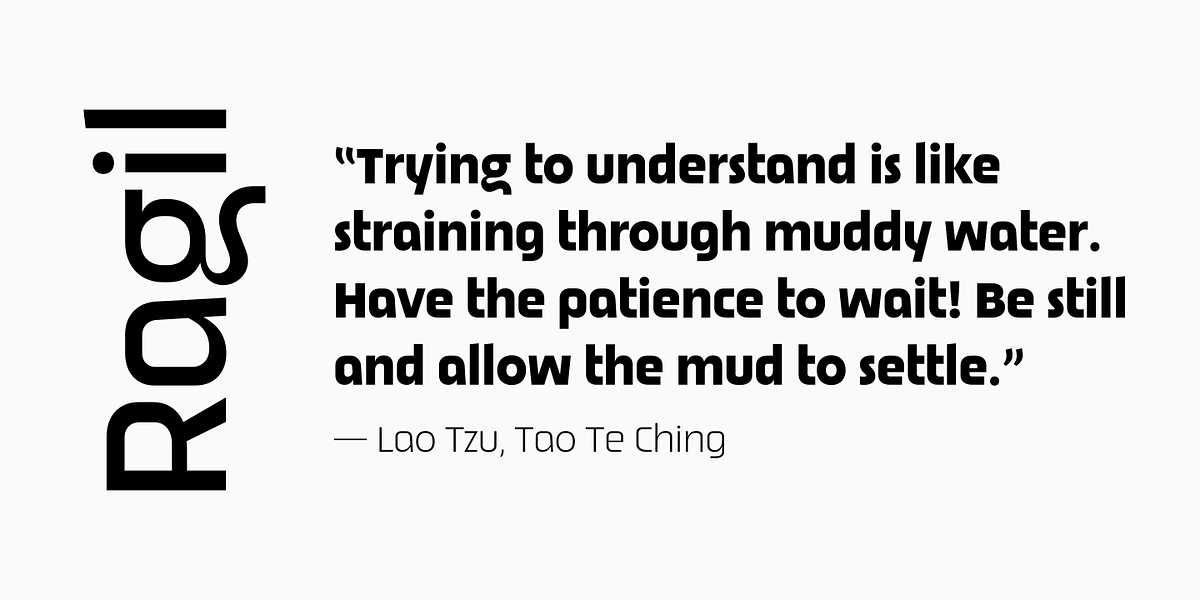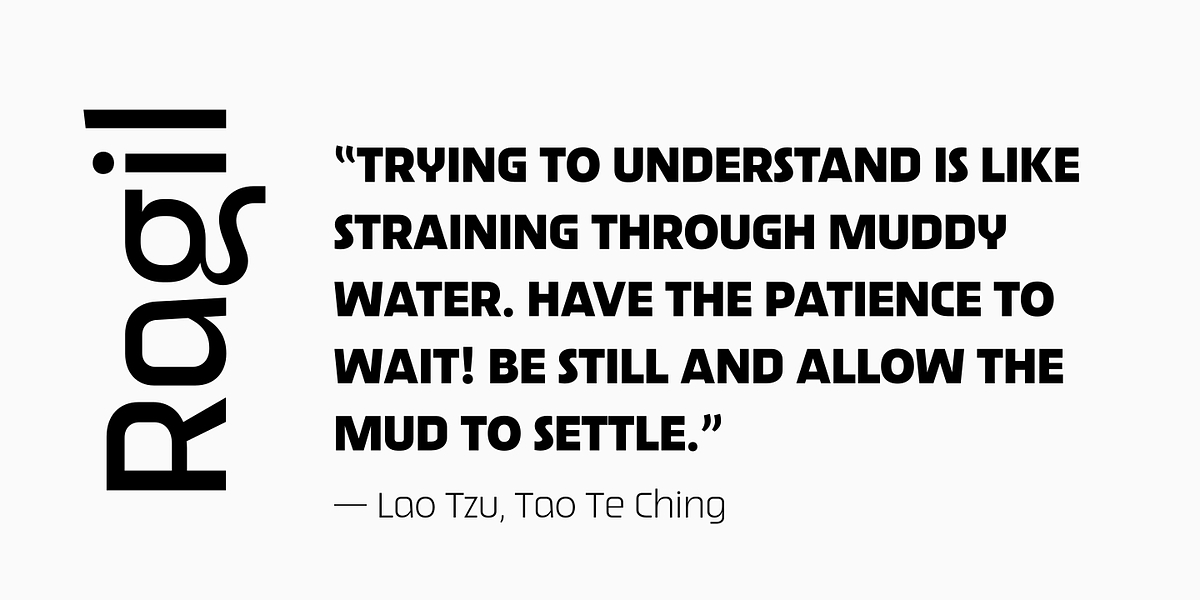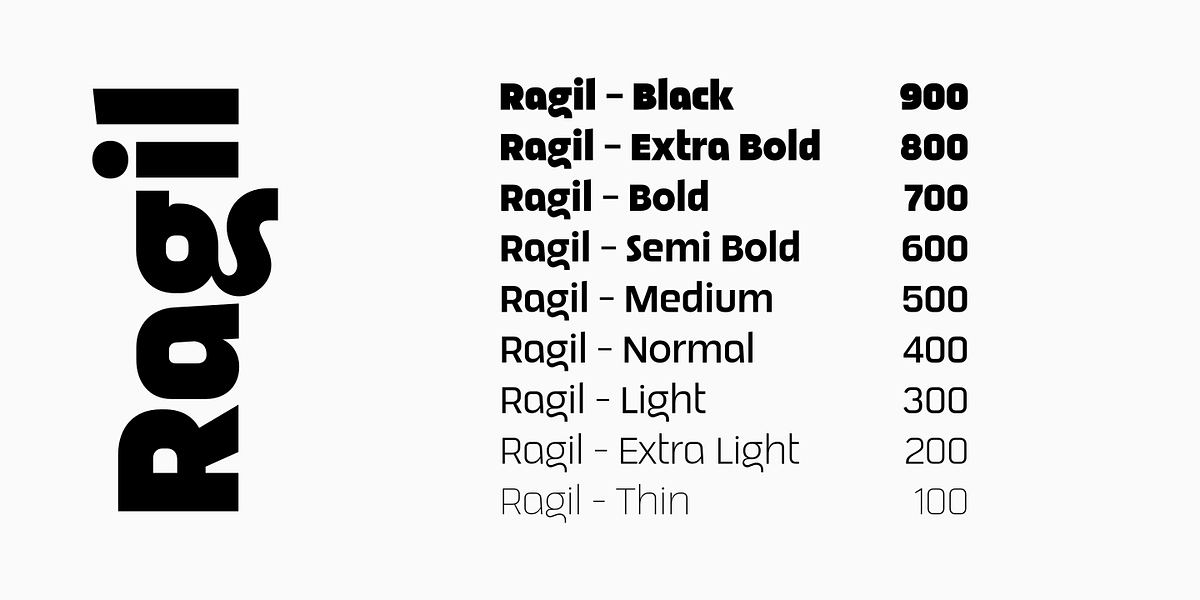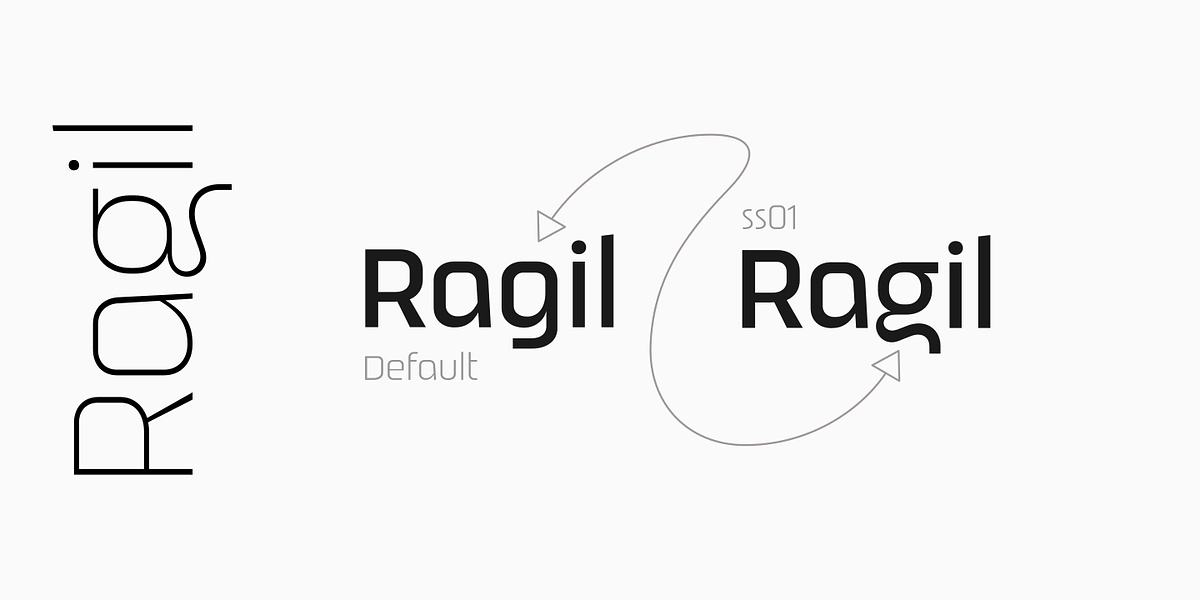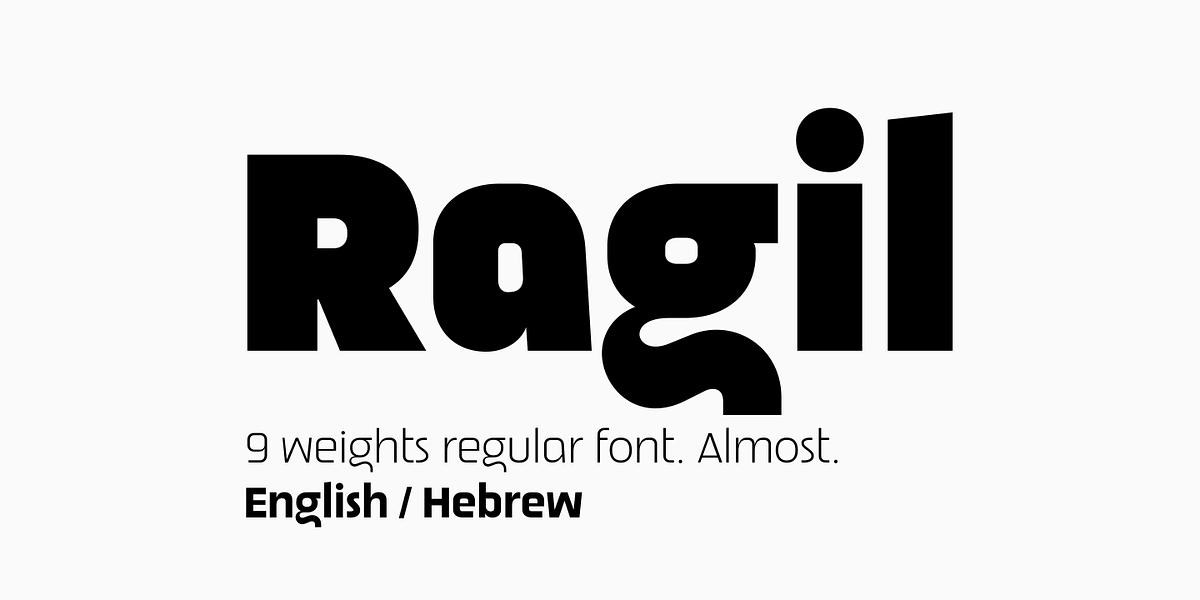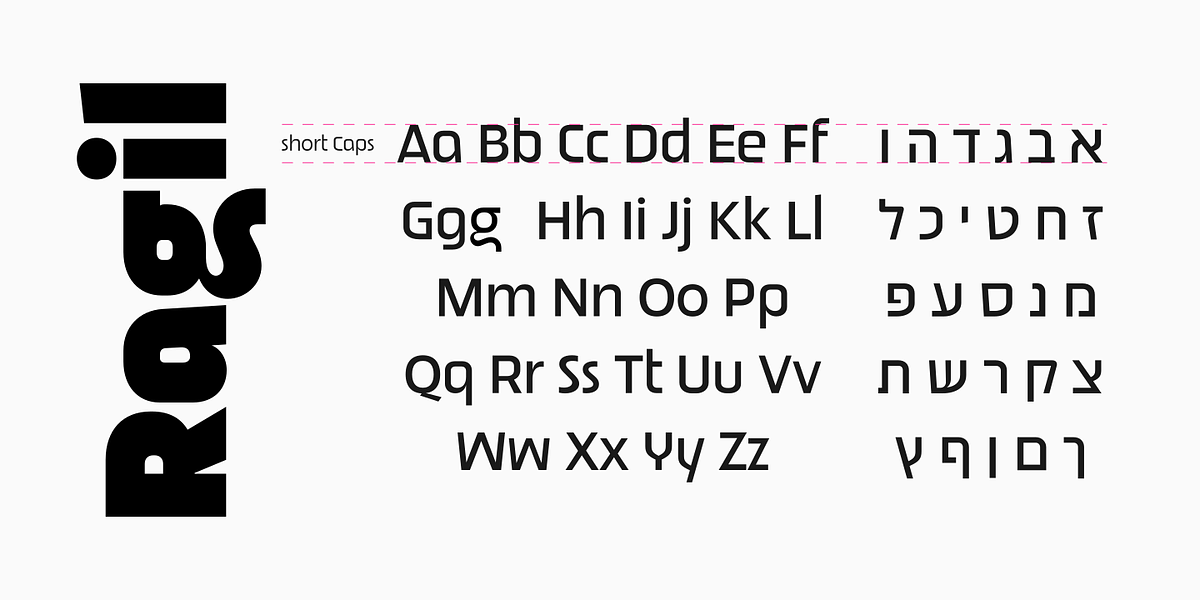
OS Ragil
This font is a versatile geometric sans-serif design offering nine weights. Its distinct feature is a shortened x-height compared to typical sans-serif fonts. This characteristic lends itself well to both display and text applications, making it suitable for headings, body copy, and logo design.